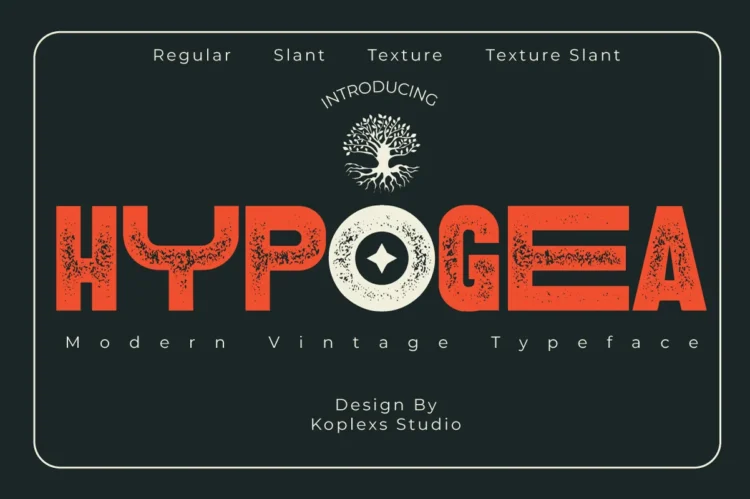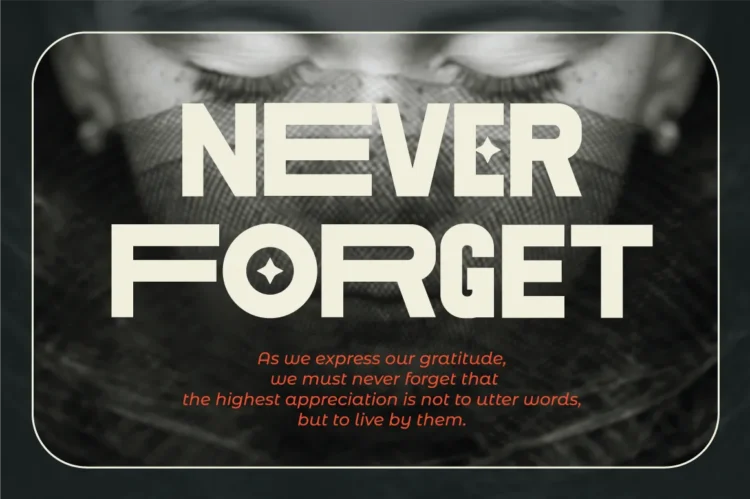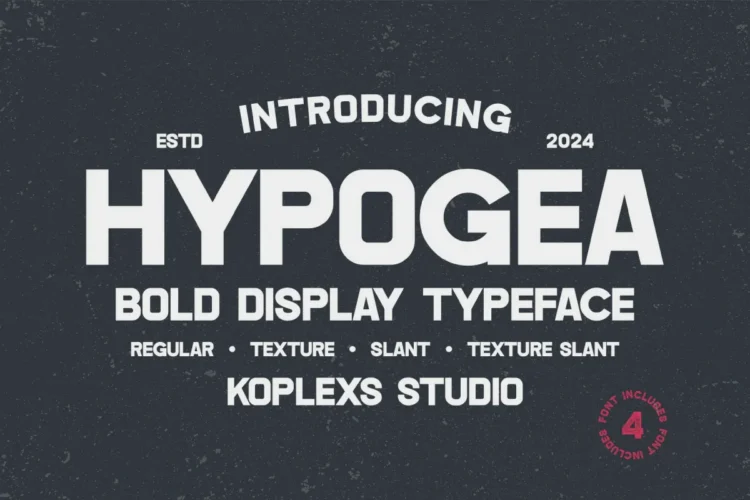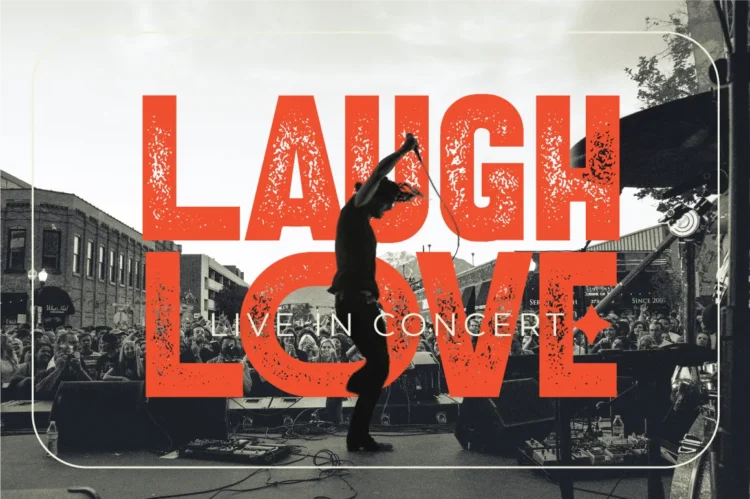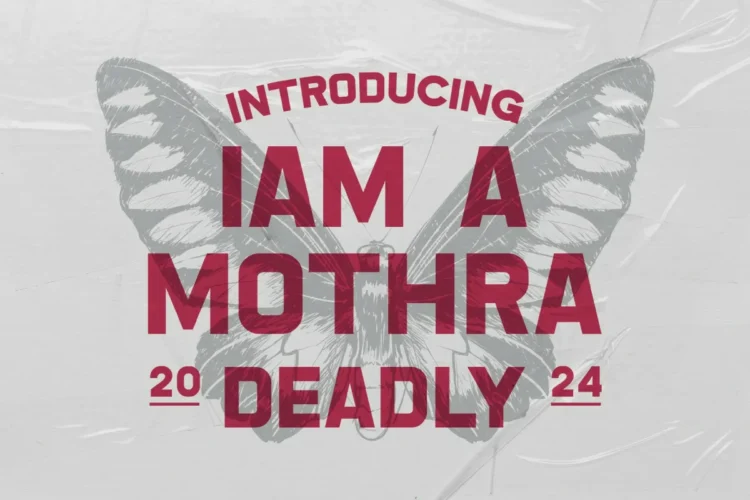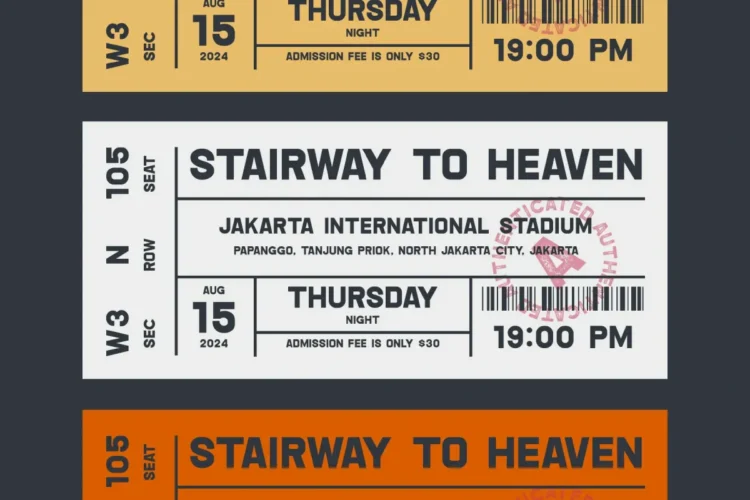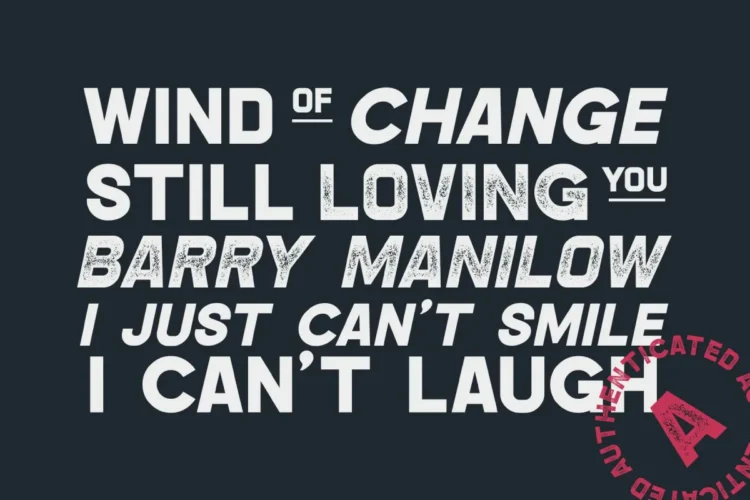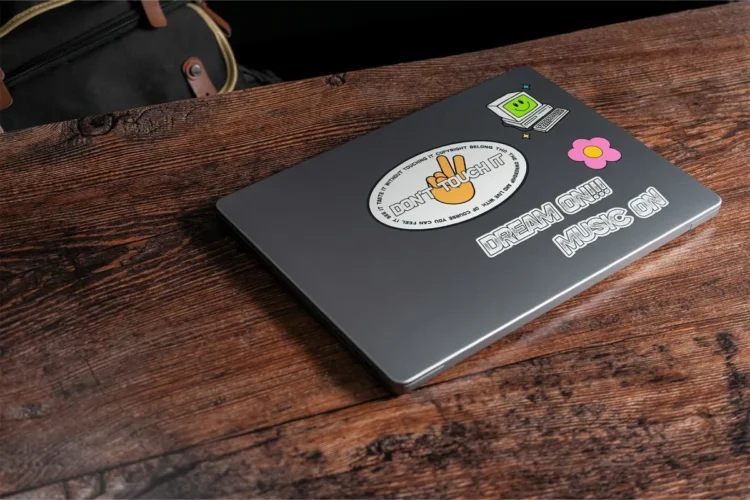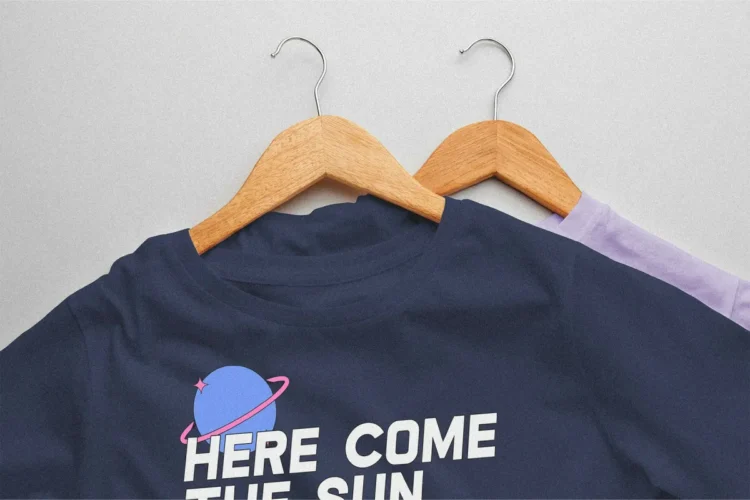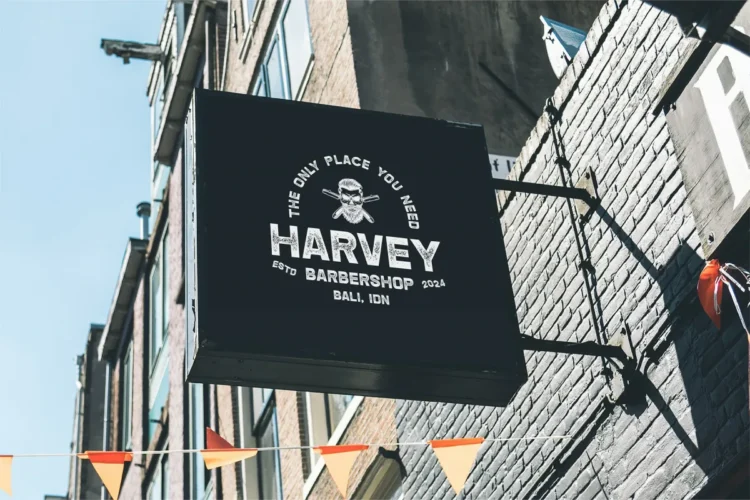
Hypogea Font – Bold Sans Serif Vintage Retro Typeface for Logo, Branding & Posters
Hypogea Font is a bold and expressive Sans Serif font crafted to deliver a strong visual presence with a distinctive blend of vintage aesthetics and modern typography. Designed for designers who need impact, clarity, and character, Hypogea Font combines bold font construction with subtle retro details that evoke timeless design while remaining highly relevant for contemporary use.
This versatile Vintage font draws inspiration from classic signage, old posters, and heritage branding, refined into a clean and professional modern font suitable for today’s creative industry. Its geometric structure, balanced proportions, and confident weight make it an excellent headline font and heading font, ensuring maximum readability and visual strength across both print and digital platforms.
One of the key strengths of Hypogea Font is its optional texture font styles, which introduce an organic, slightly distressed feel. This texture adds depth and authenticity, making it perfect for projects that require a raw, handcrafted, or adventurous tone. Combined with its clean regular style, Hypogea Font allows designers to switch effortlessly between polished modern looks and expressive retro visuals.
Hypogea Font is versatile and works beautifully for :
- Logo Design & Branding Projects
- Poster & Headline Typography
- Product Packaging & Labels
- T-shirt Design & Merchandise
- Adventure & Travel Themes
- Vintage Signage & Advertising
- Modern Minimalist Layouts
Hypogea Font Features:
- All-caps design for powerful visibility
- Balanced proportions with industrial-modern charm
- Works great on both print and digital media
- Includes multilingual support and smooth kerning
Whether you need a retro font for nostalgic appeal, a texture font for raw authenticity, or a modern font for sleek branding Hypogea delivers. Its bold display style makes every design pop, while its versatile character adapts beautifully to labels, packaging, magazines, and signage.
Give your projects a unique edge with this headline font that embodies strength, creativity, and timeless character.